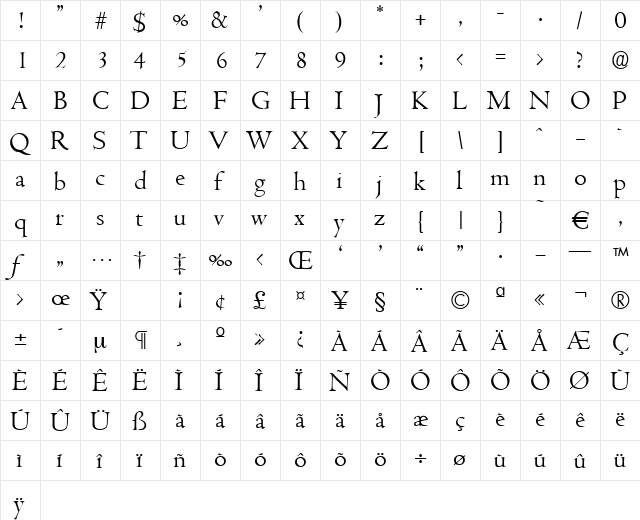
Cambridge-Light Regular
Design Context for Cambridge-Light Typeface
Cambridge-Light offers clean, dependable letterforms without strong stylistic allegiance, making it a practical choice for designers who need flexibility. The delicate stroke weight brings airiness and refinement to layouts.
Pro Tip: Pair Cambridge-Light with a font of contrasting weight or personality to build a more expressive typographic hierarchy.